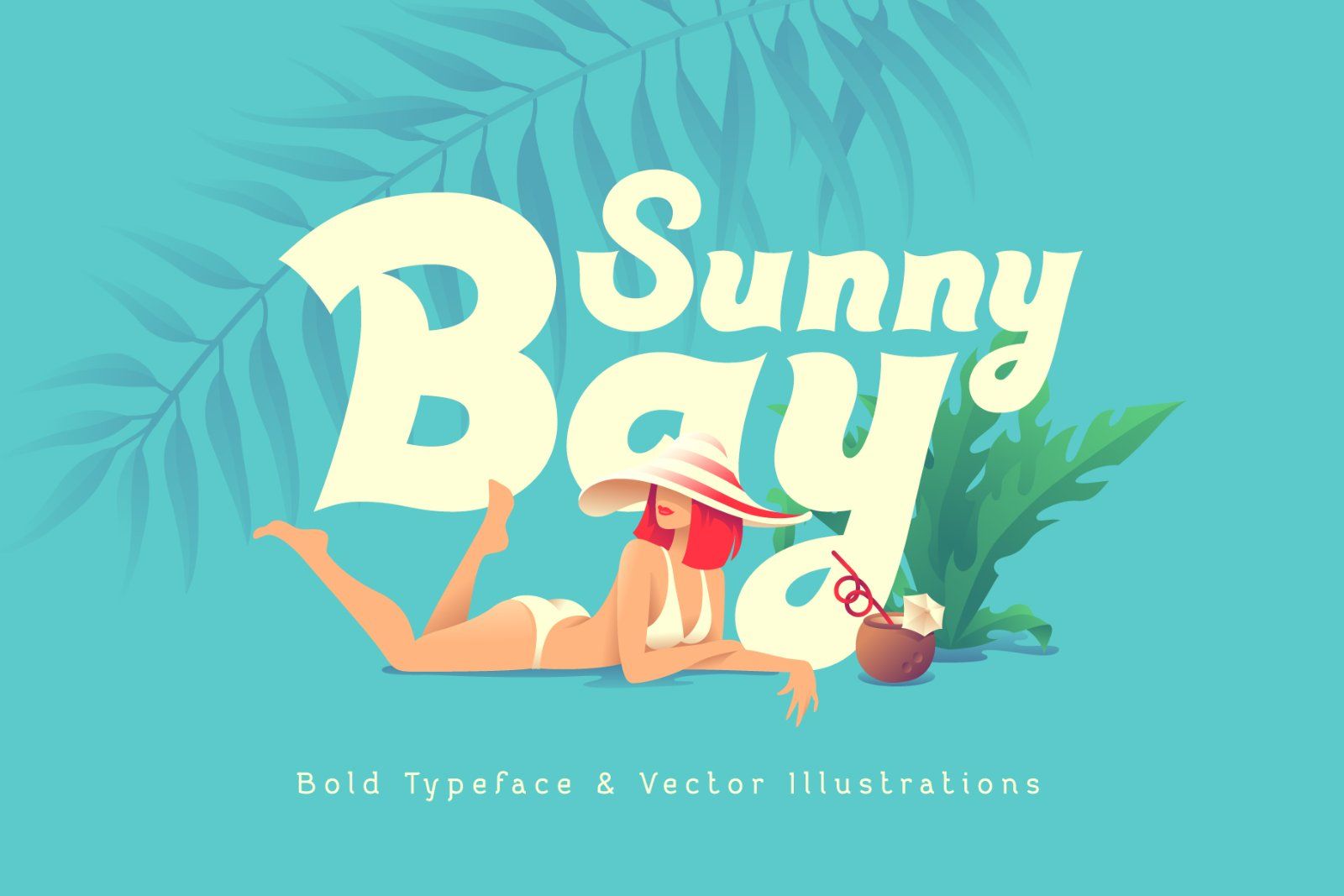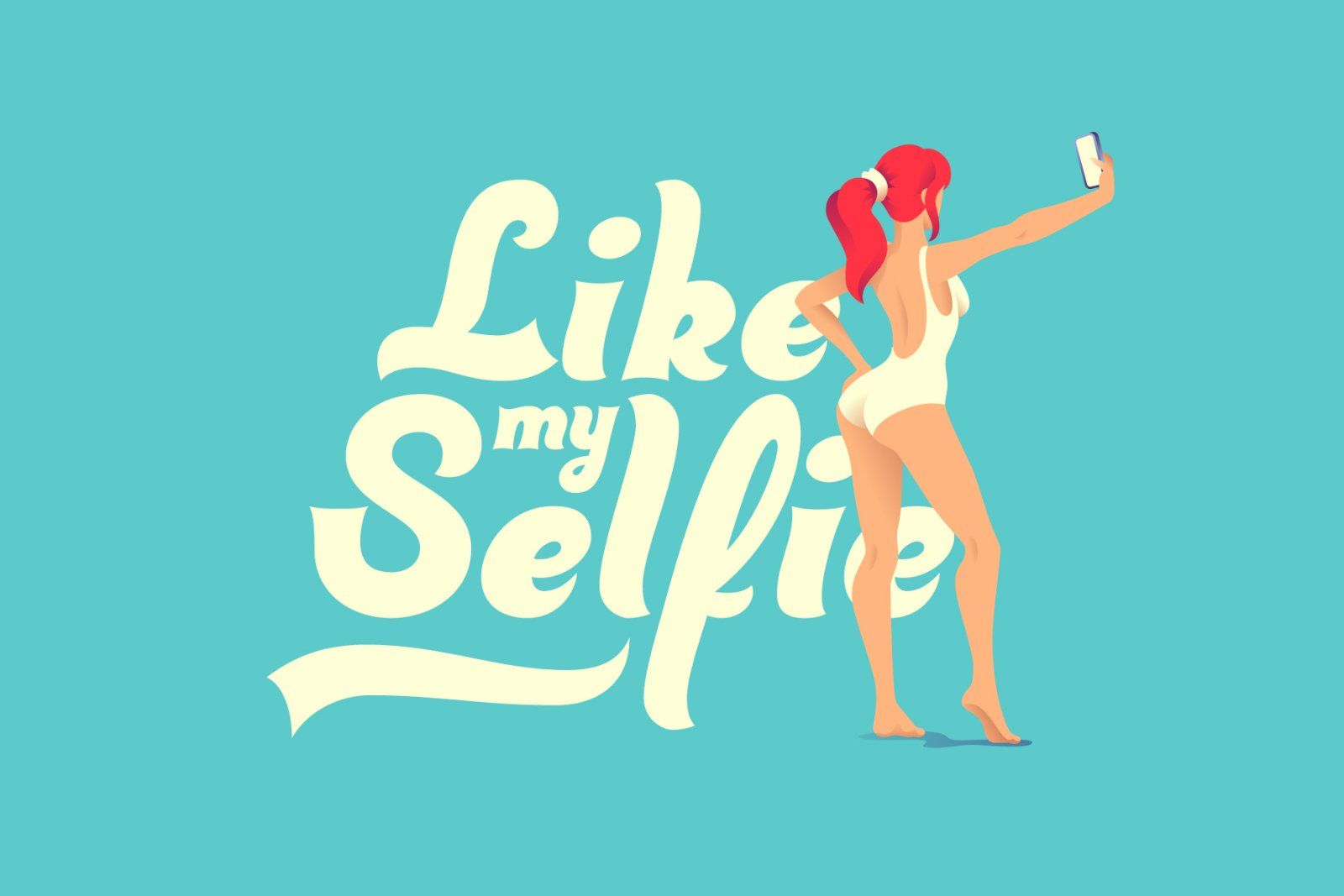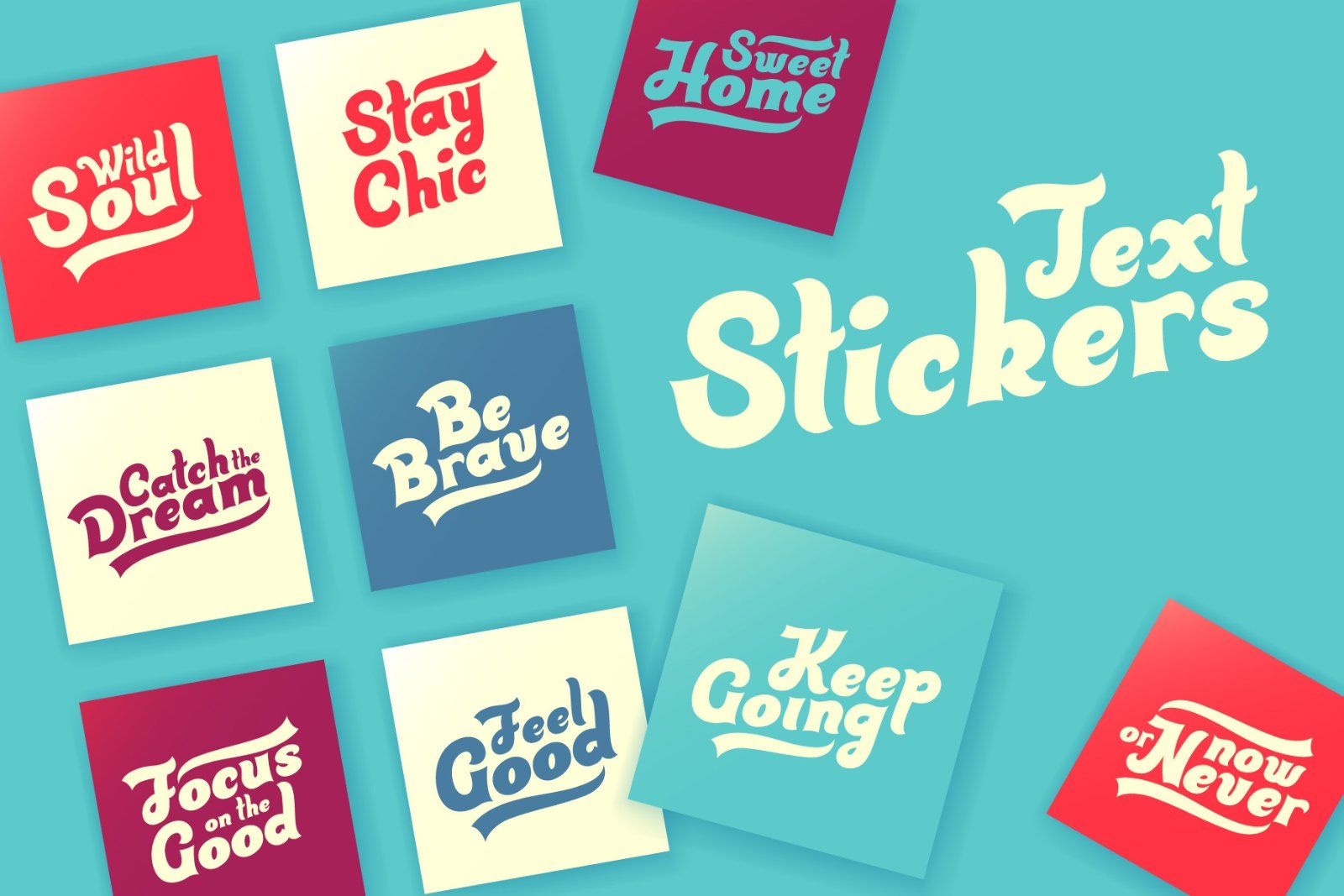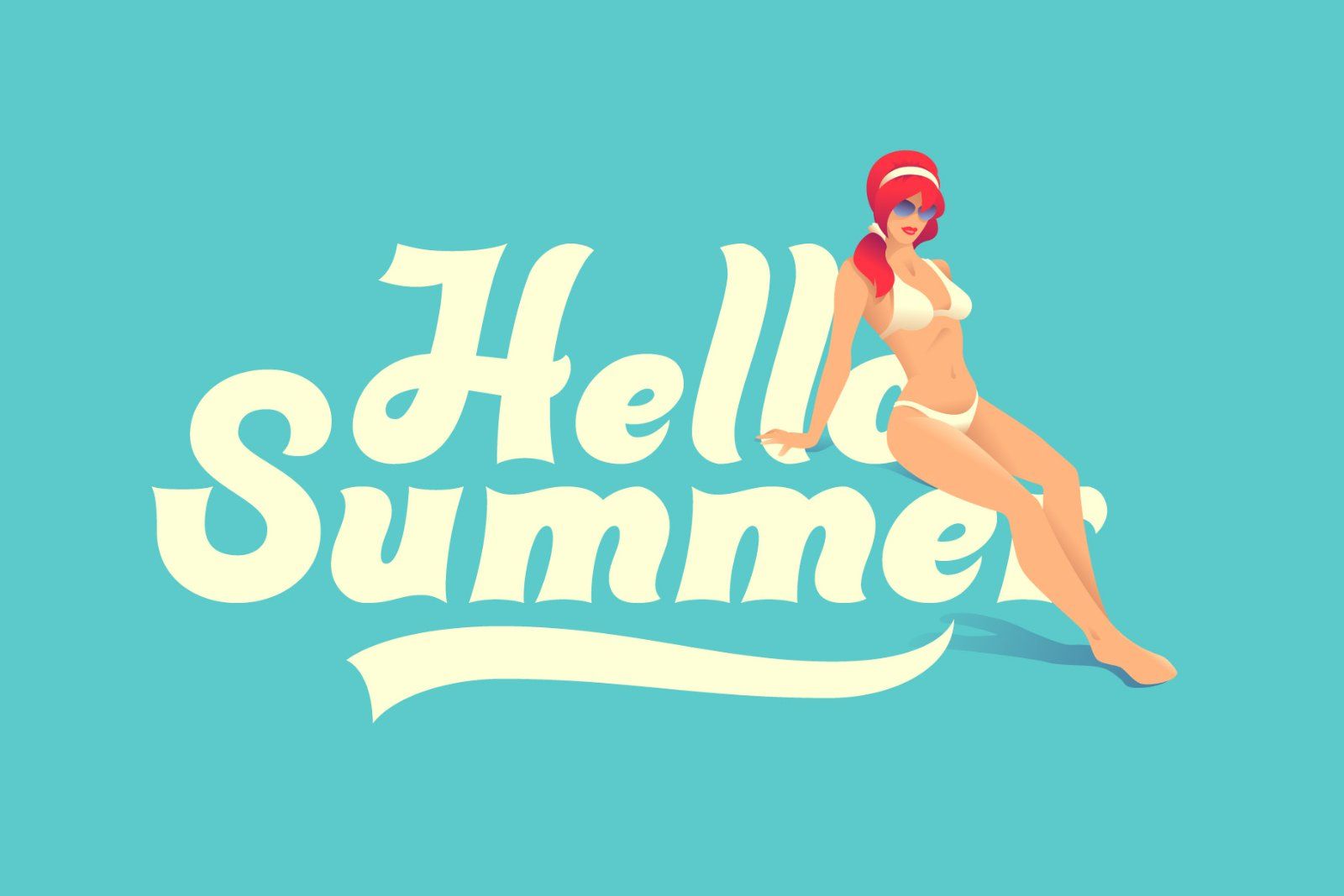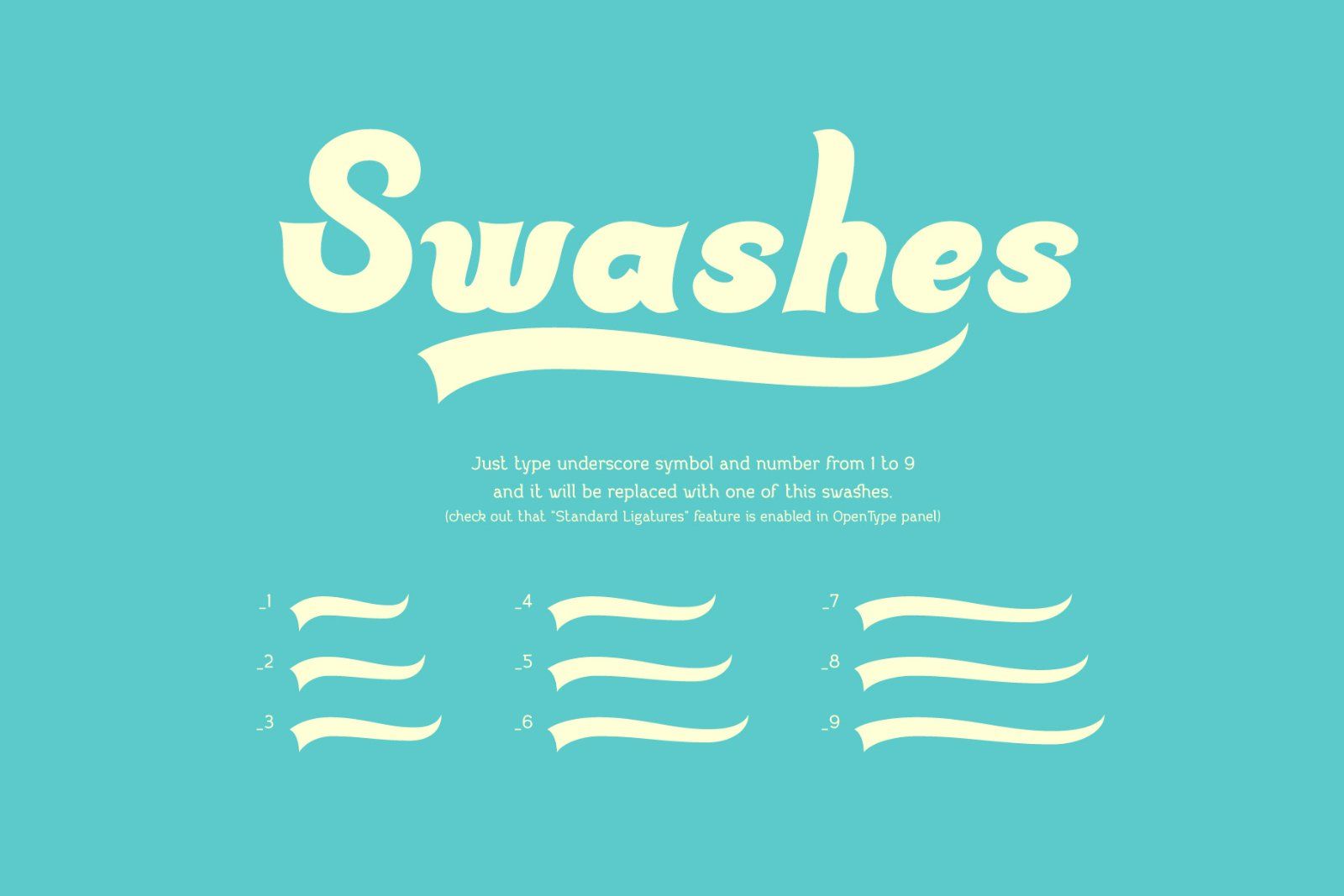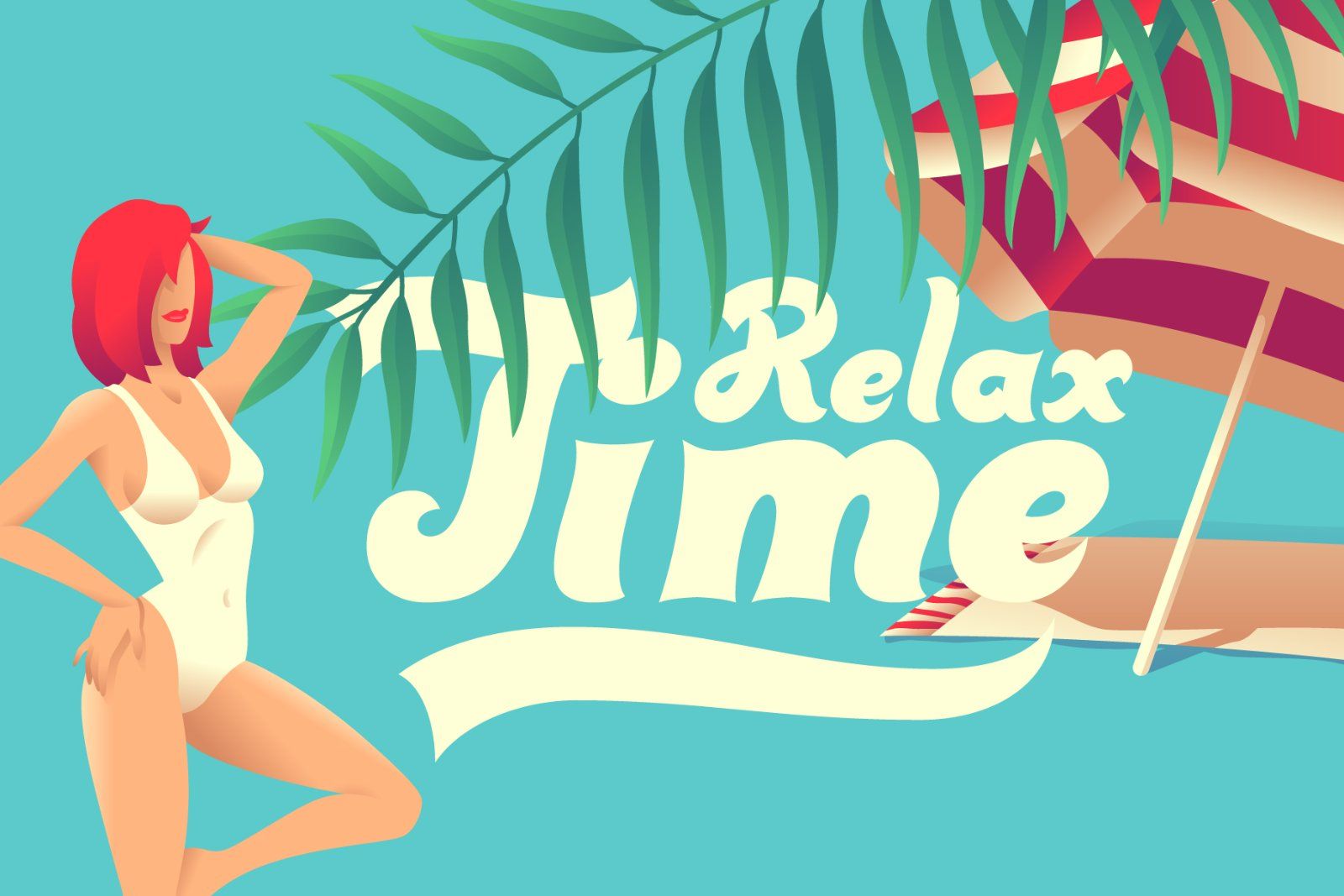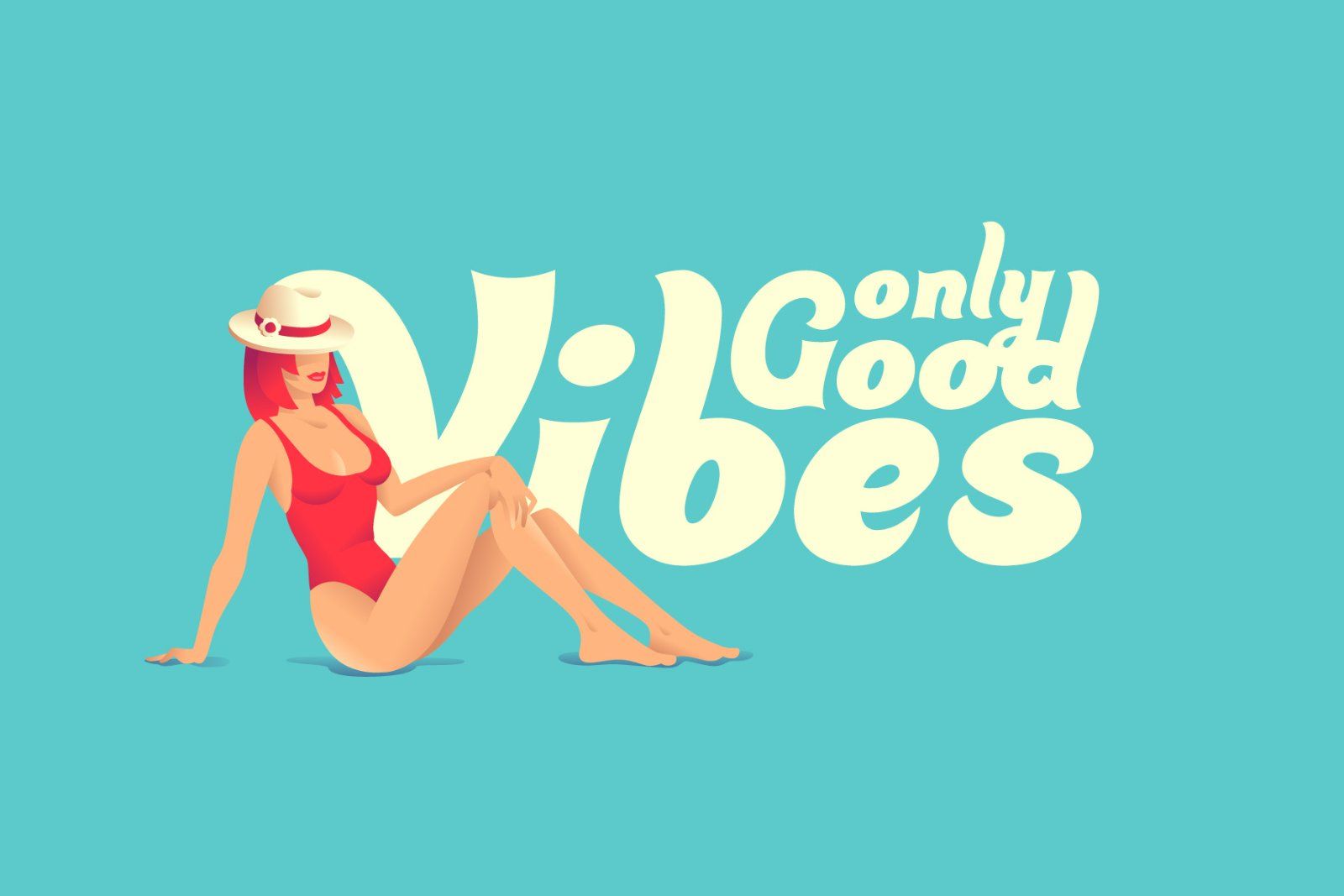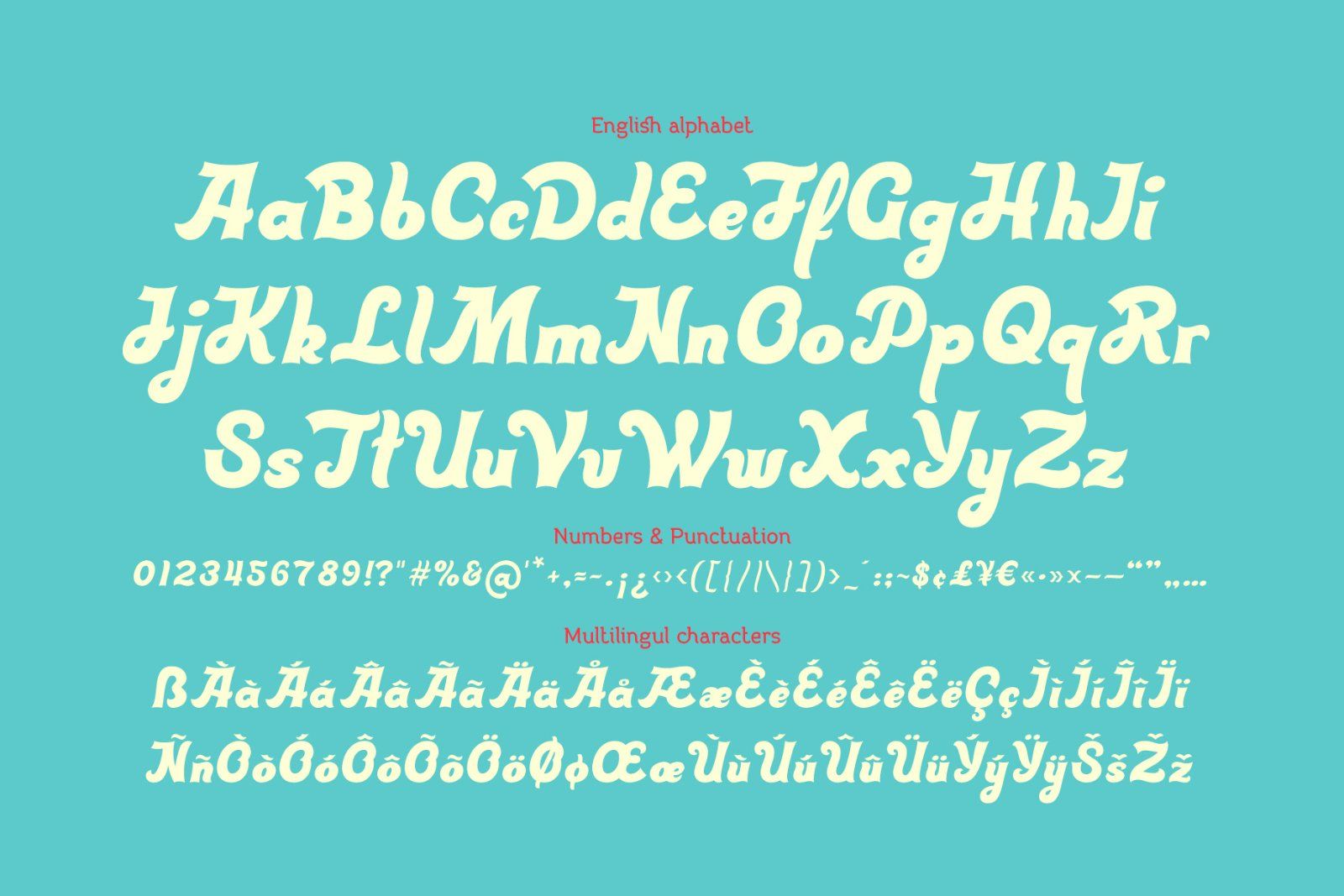
Introducing a hot summer font Sunny Bay. It's a bold typeface with a smooth vintage look. Sunny Bay font has a west European multilingual support and additional swash characters. To access swash glyphs, just type underscore character and number 1-9, like this _1. Using "standard ligature" feature this symbols will be automatically replaced with one of the swash symbols.
Also this package includes a summer vector illustrations, with 5 beautiful women wearing a swimsuit posing. 9 lettering stickers with motivational quotes are available in editable vector file. And other vector stuff that you can see on screenshots, you will find in ai & eps formats.